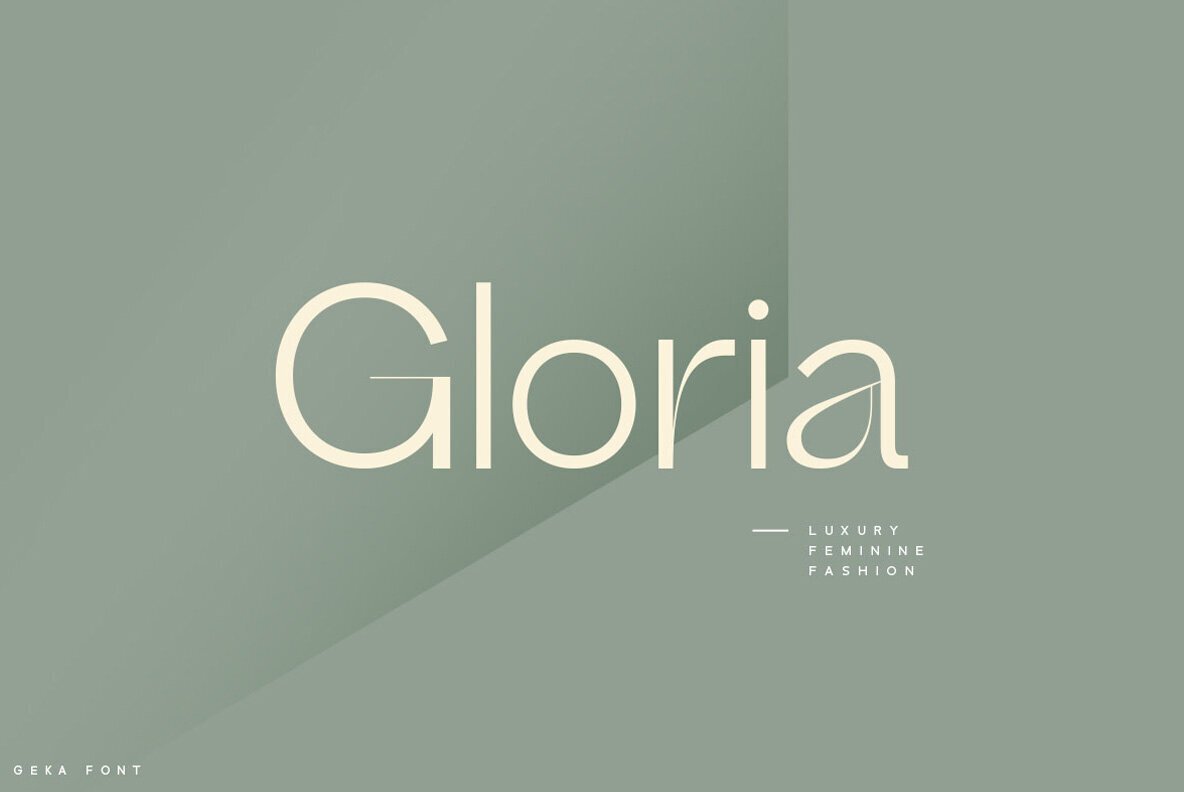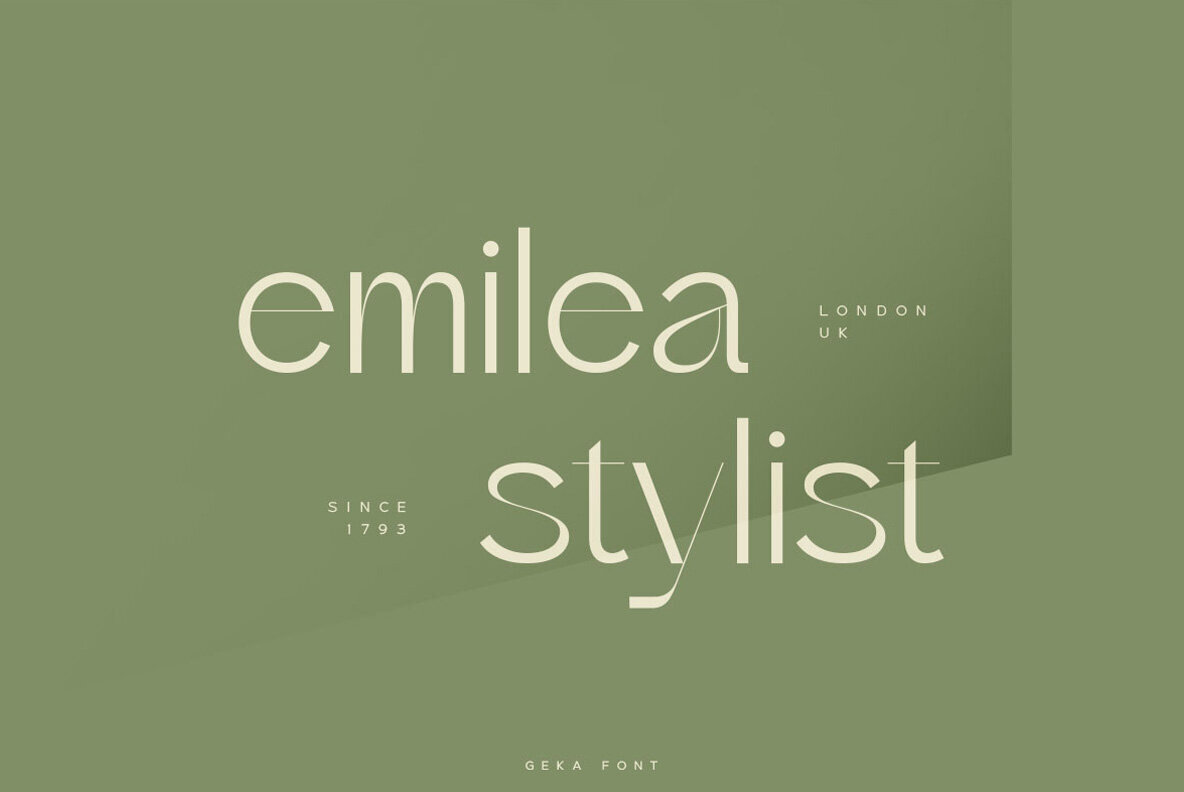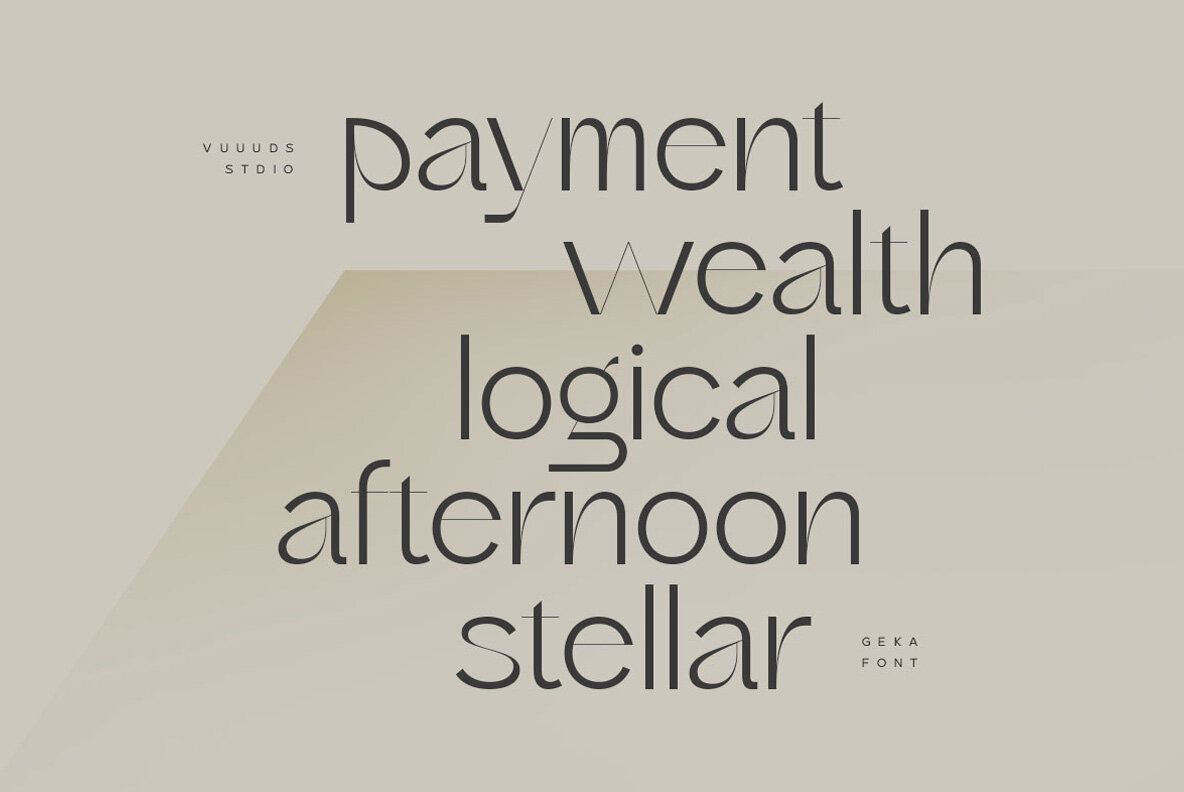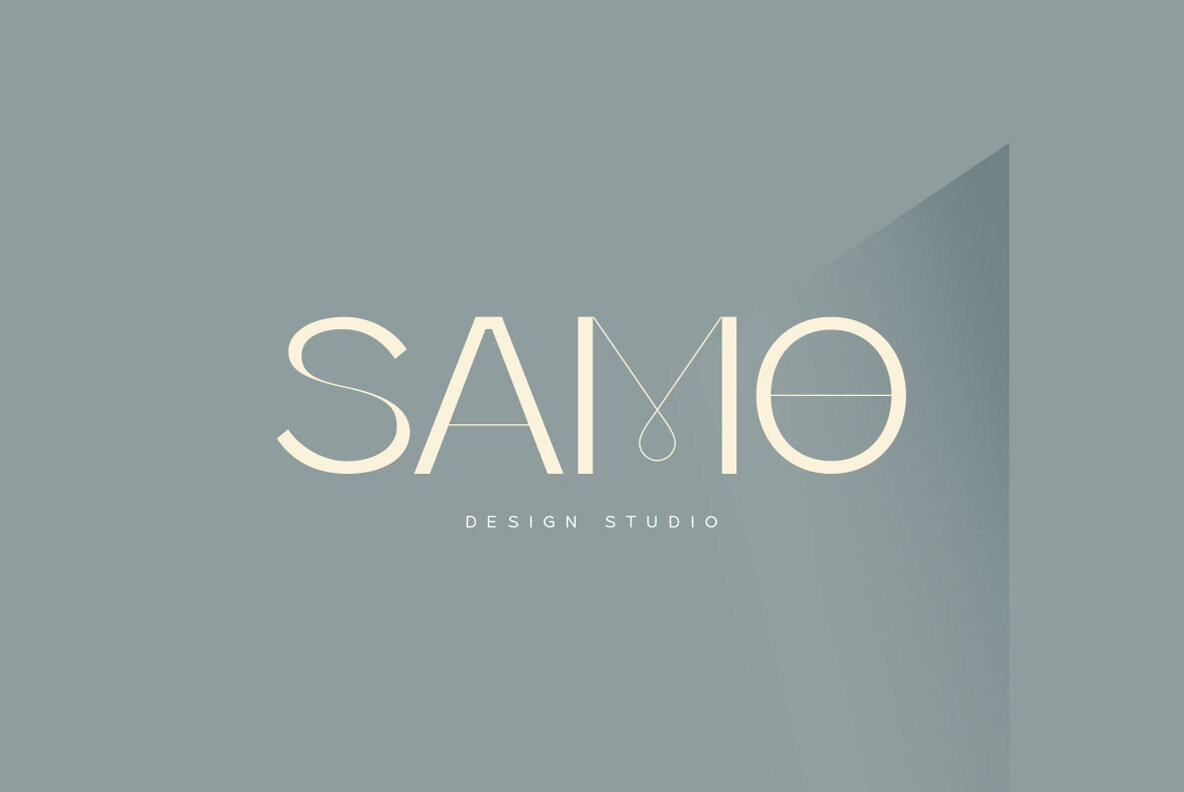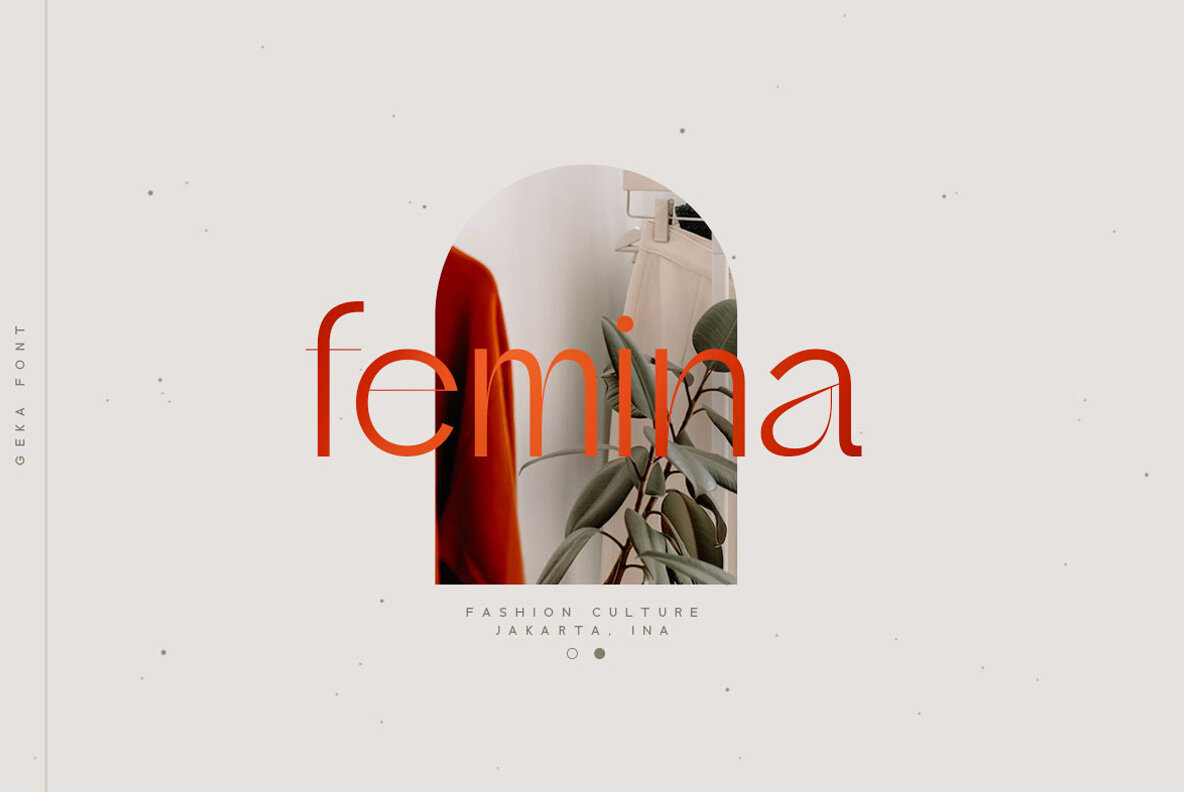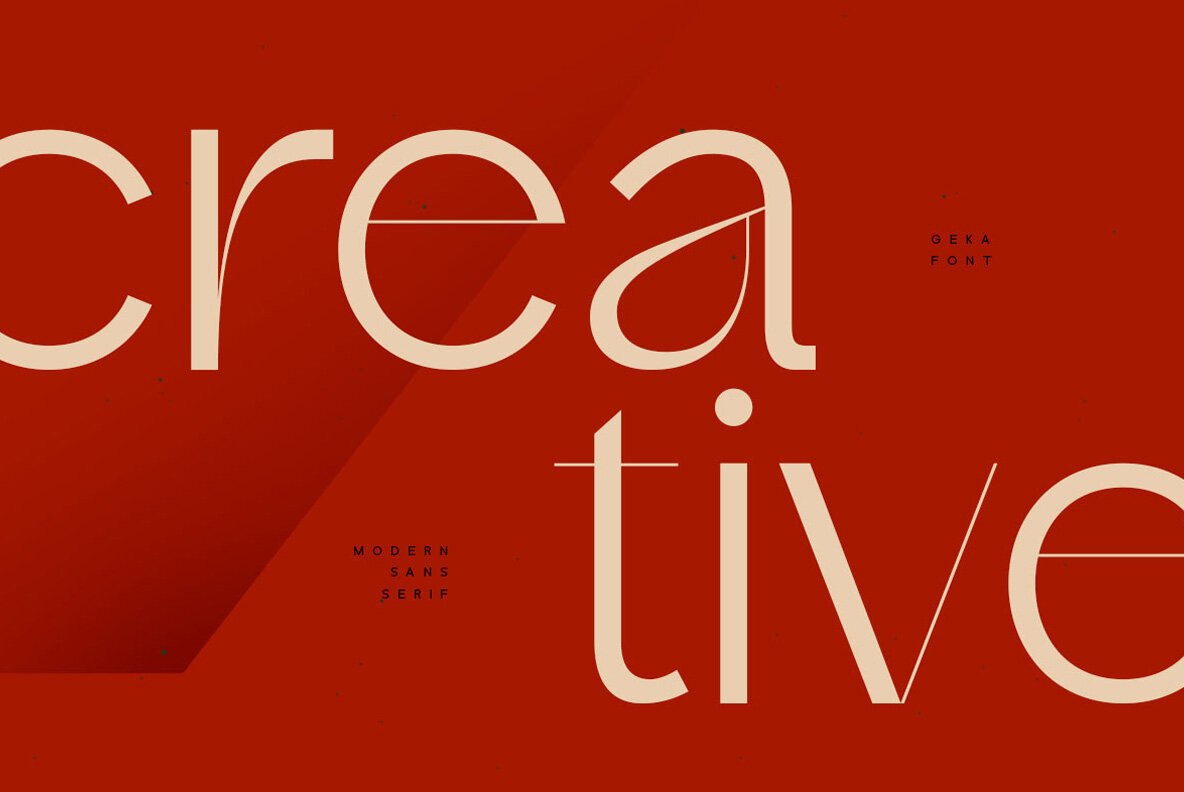
Geka Font
Geka by Agung Syaifudin introduces a contemporary fashion font where each letter has been meticulously designed to lend your text a distinctive appeal. Ideal for designers seeking a modern touch with an artistic edge, this font promises to enhance your typographic projects through its skillful construction. Features:Geka: Modern Fashion Font with Unique Flair